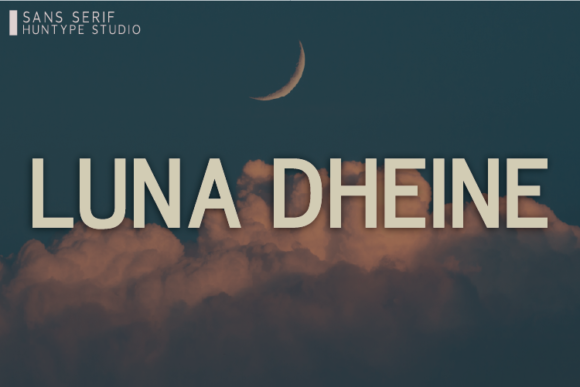
**Luna Dheine: The Epitome of Elegance and Sophistication**
Immerse yourself in the captivating world of Luna Dheine, a font that embodies grace and allure. Its crisp sans serif strokes dance across the page, exuding an air of refinement and timelessness.
Crafted with the utmost care by Huntype, Luna Dheine is a masterpiece designed to elevate your creations. Its versatility knows no bounds, lending itself effortlessly to a multitude of projects.
Whether you seek to create stunning logos that command attention or craft eye-catching headlines that leave an unforgettable impression, Luna Dheine is your ultimate companion. Unleash your creativity and let this enchanting font guide you towards design excellence.
**Embrace the allure of Luna Dheine and witness the transformation of your designs into captivating works of art. Its timeless beauty and versatility will captivate your audience, leaving them utterly enthralled.**